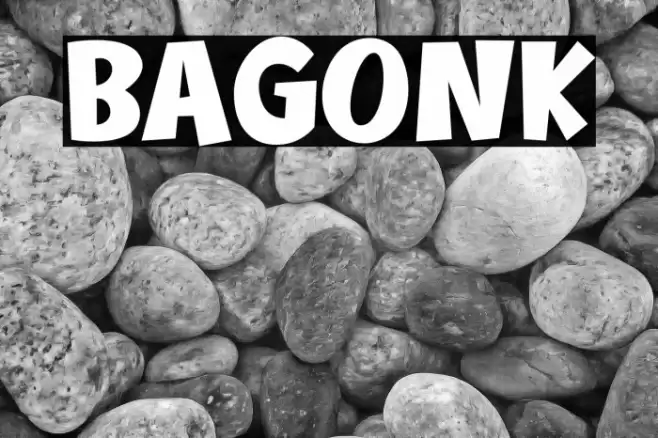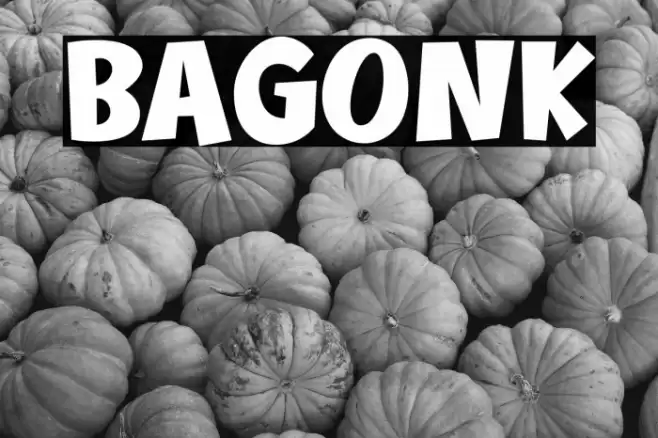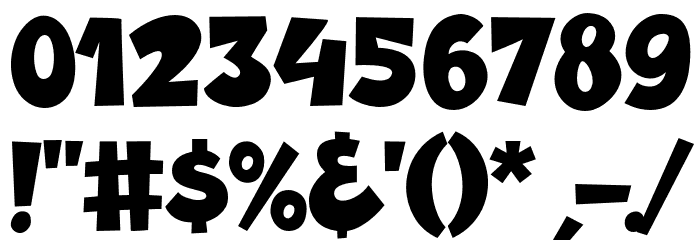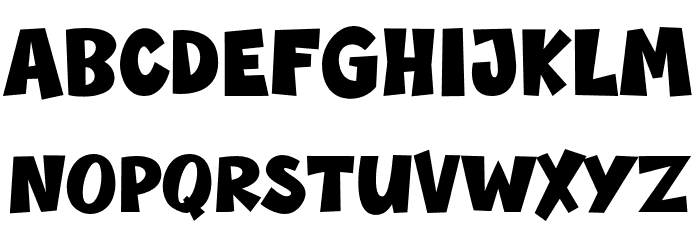
Bagonk Font
Bagonk Description
This font features a bold and playful style with exaggerated, uneven strokes that give it a lively and dynamic appearance. The characters are slightly irregular, adding a whimsical touch that is both eye-catching and unique. The uppercase and lowercase letters maintain a consistent weight, contributing to a cohesive look. The numbers and special characters follow the same playful design, making this font suitable for creative and informal applications. Its boldness ensures high visibility, making it ideal for attention-grabbing headlines or titles.
A bold, playful font with exaggerated, uneven strokes and a whimsical style from Cartoon fonts.
- Proposed Projects: Ideal for children's books, comic strips, playful branding, and eye-catching posters.
- Overall Style: Playful, Whimsical
- Use Case: Headlines, Posters, Branding